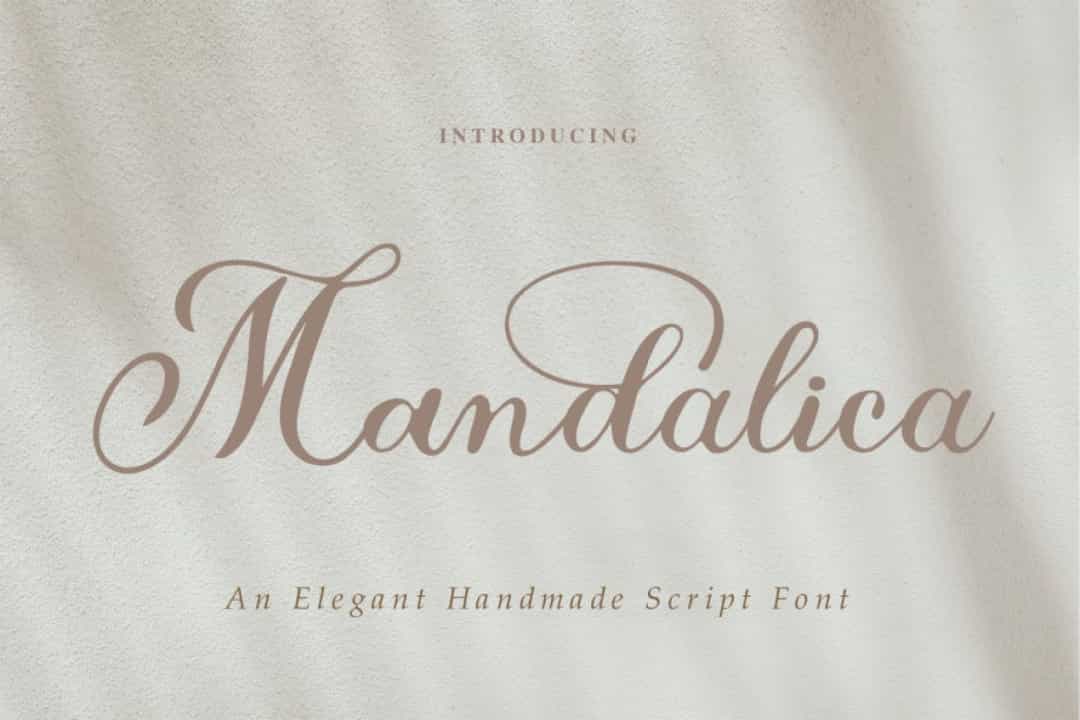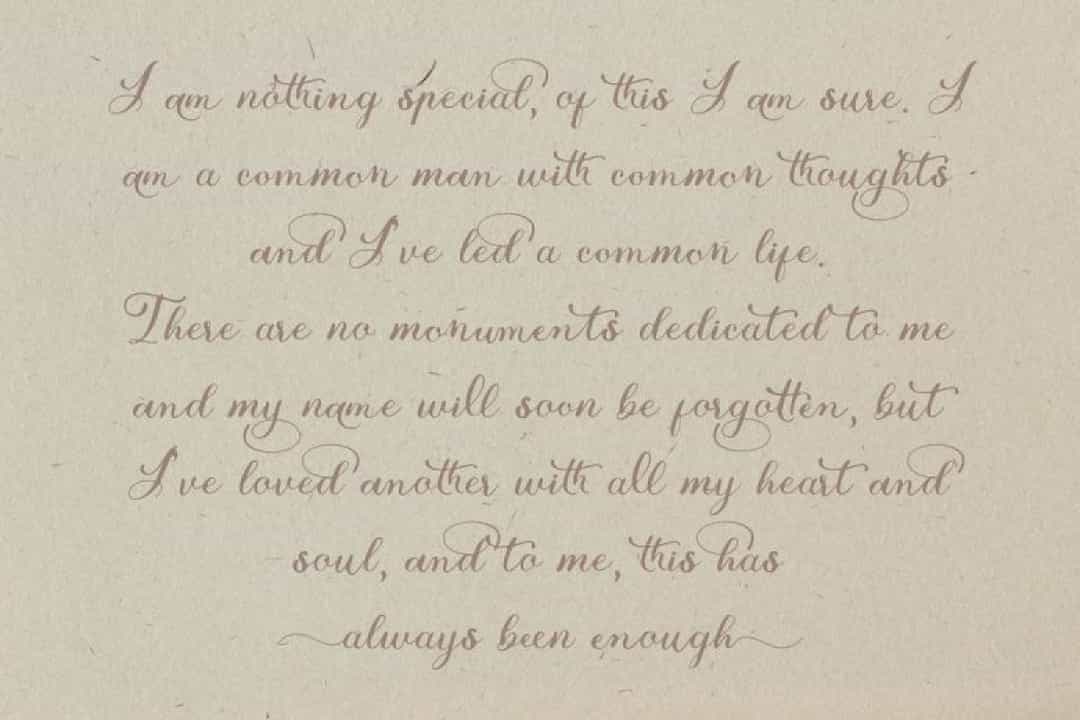
Mandalica can be described as an elegant calligraphy script font with a smooth baseline and smooth lines, modern touches and an inviting soft elegance. Perfect for adding romance and modernity into designs or branding. Ideal for use in weddings, invitations, signatures, logos and signatures on invitations as well as branding such as T-shirts, letterheads, labels signage news posters badges etc.